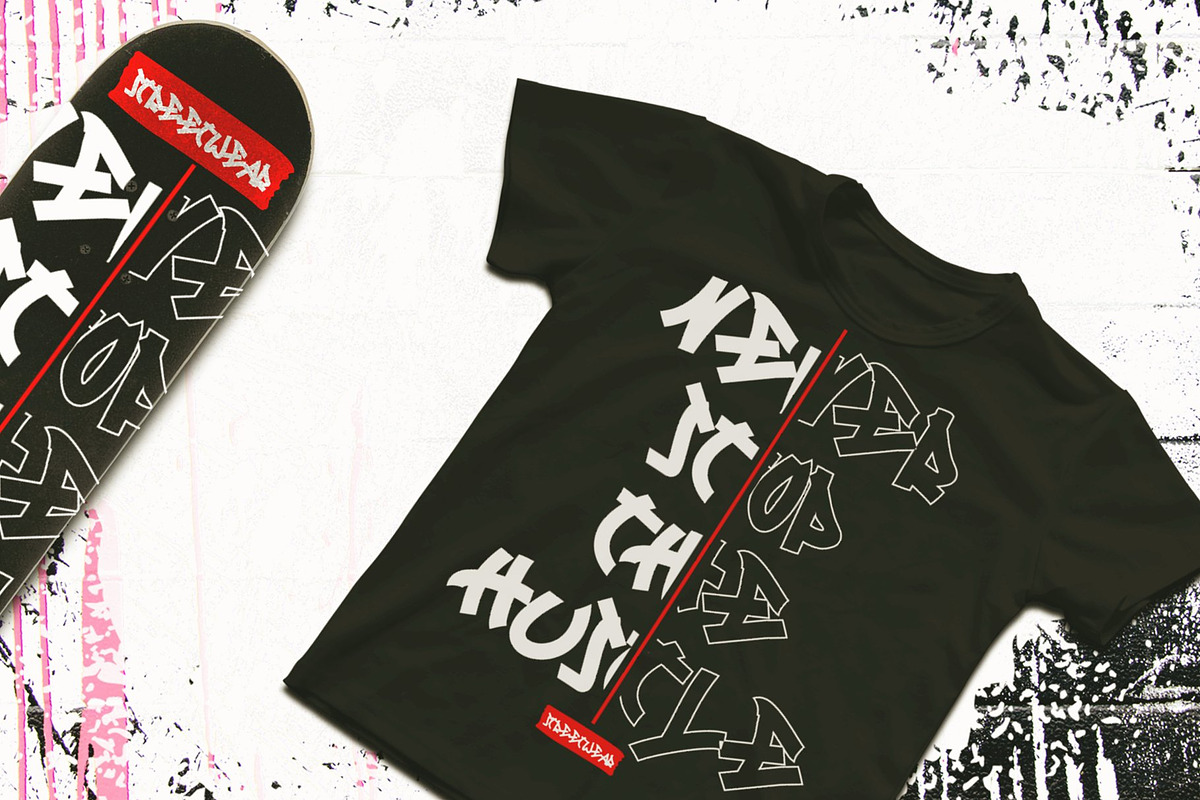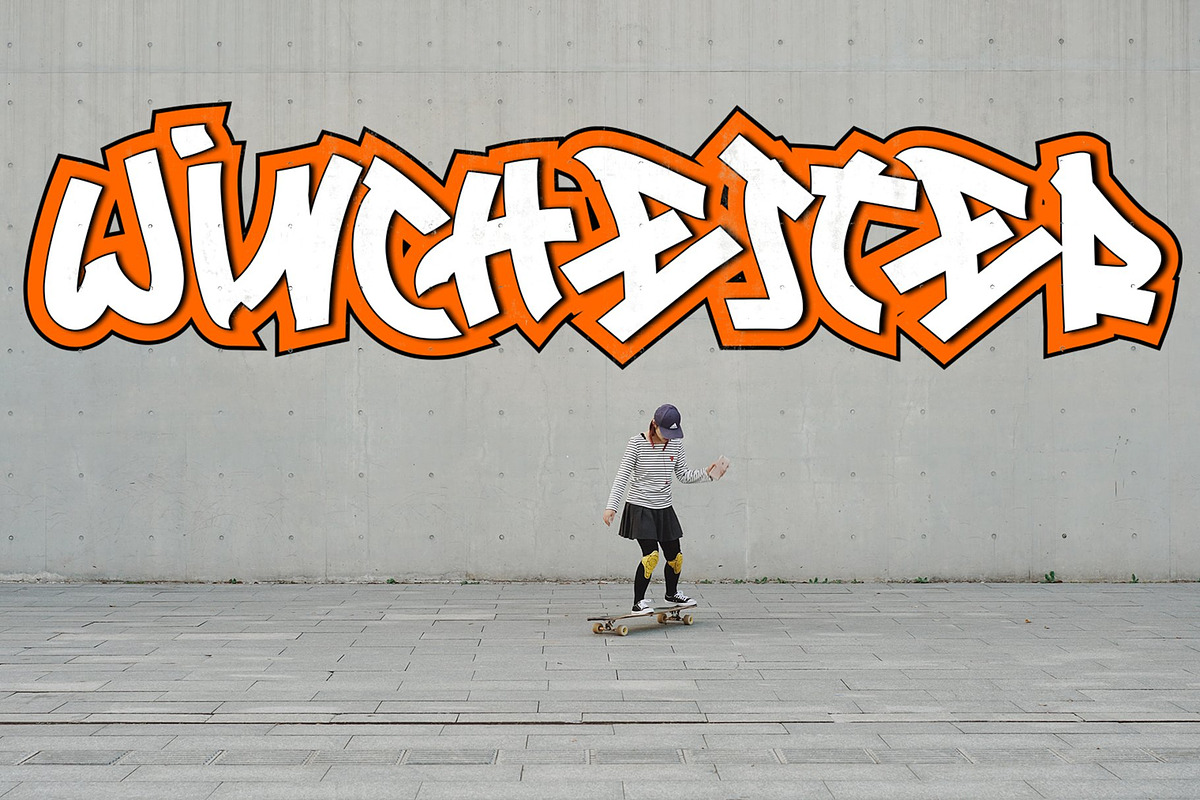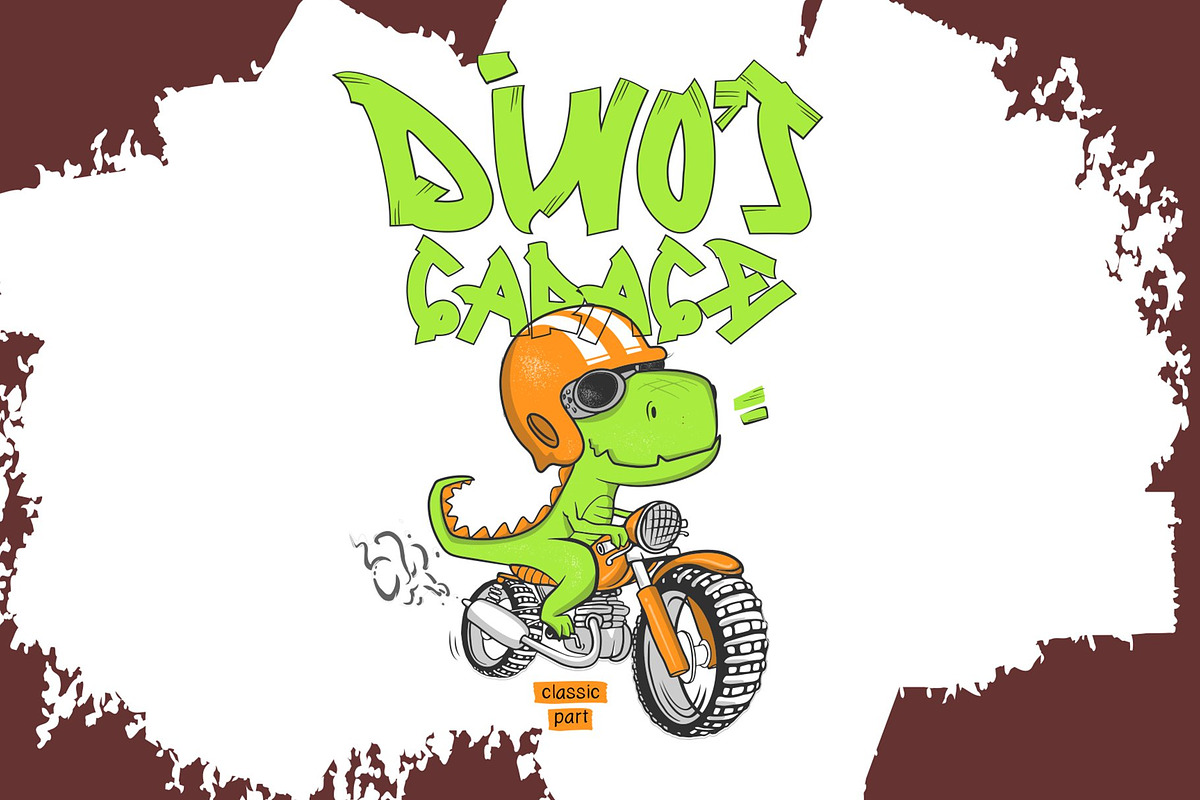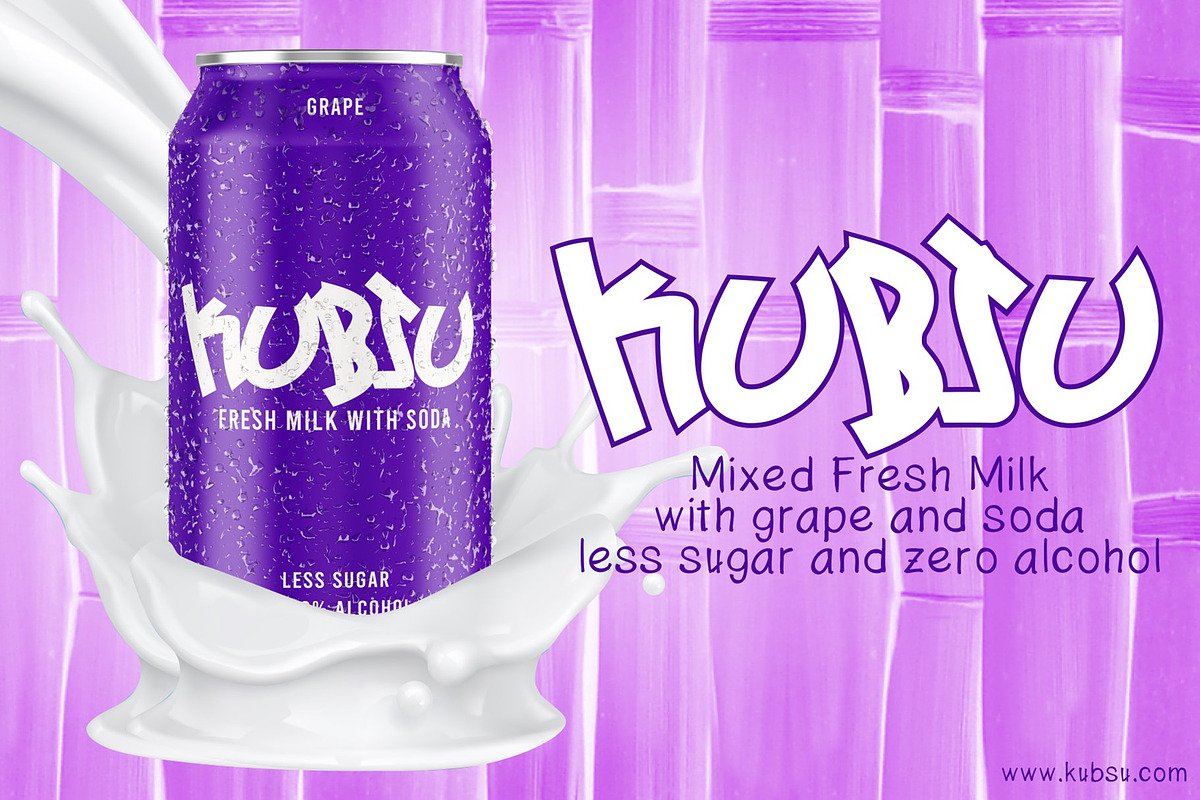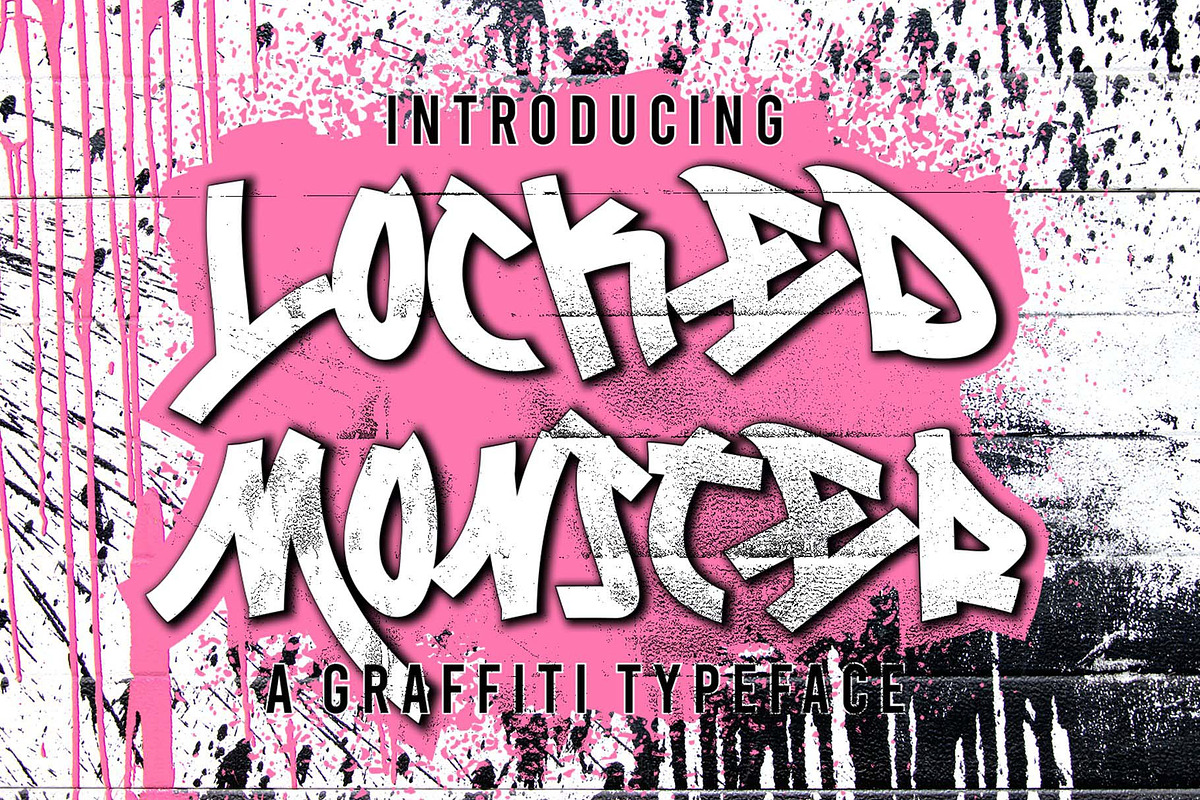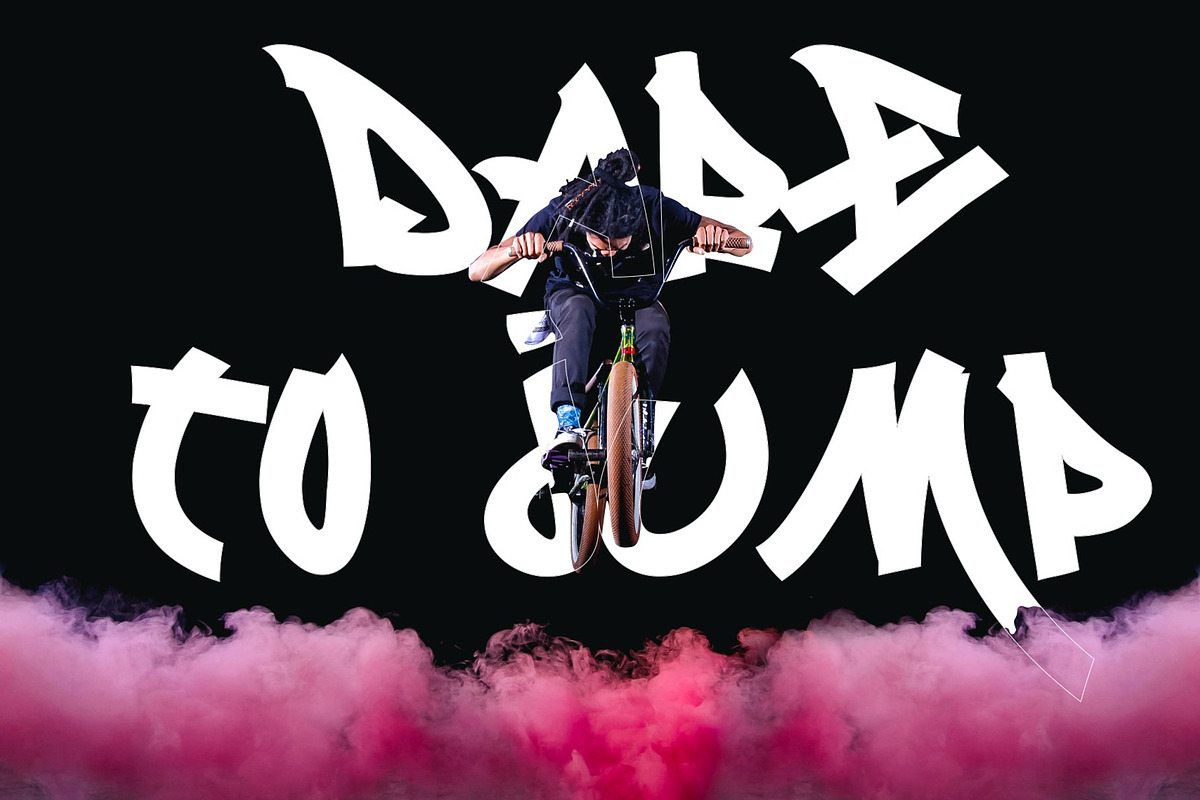
Locked Monster - Graffiti Font
Locked Monster is a display font with a basic graffiti style. It will elevate a wide range of design projects to the highest level, be it branding, headings, wedding designs, tittle, signatures, logos, labels, movie, video, magazine, logotype, crafting, packaging, advertising and much more!